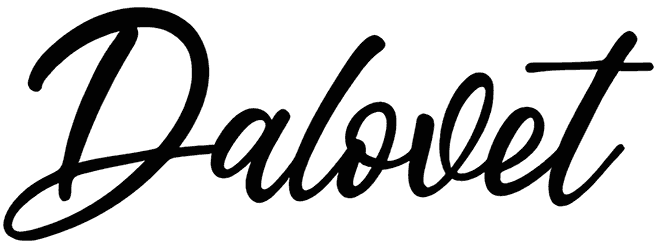
Dalovet Font
Always in style and keeps its fan, script font with artistic and lifelike looking spreads the comfy feeling on whatever is put, no matter business cards, apparel design, cosmetic packages, or even wedding invitations.